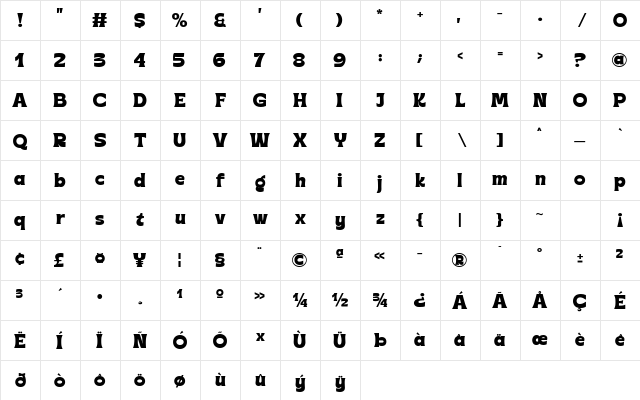
Seven Moon Regular
Foundry: Four Lines Studio
Designer: Zain Fahroni
Design Context for Seven Moon
Seven Moon is a composed and adaptable typeface that performs quietly and consistently across a wide range of design contexts.